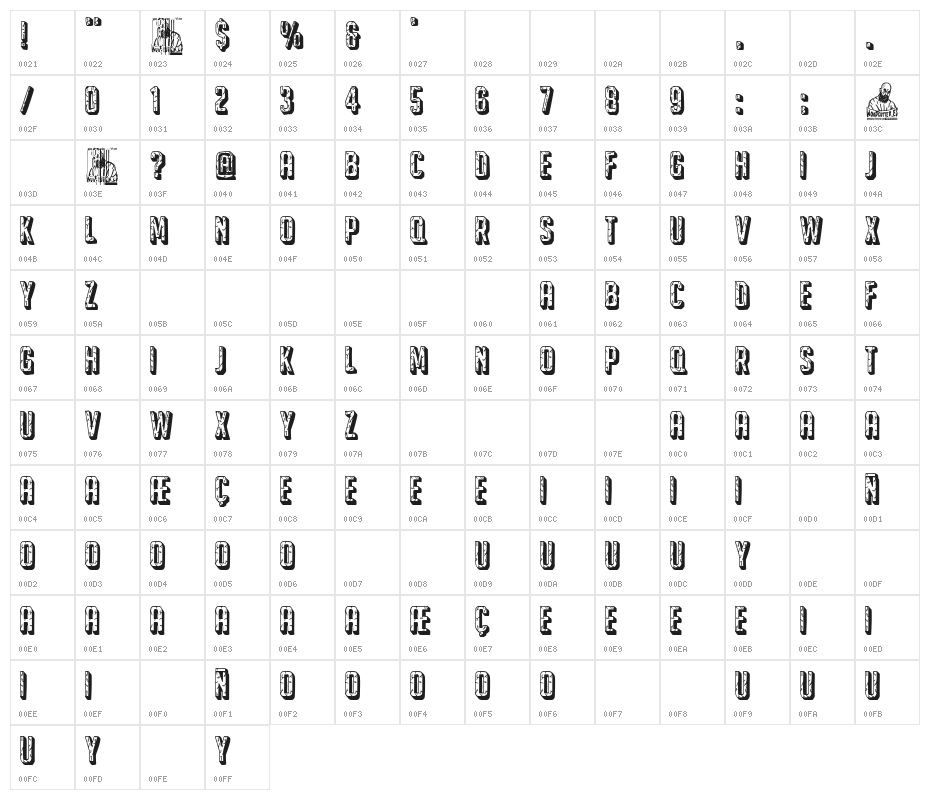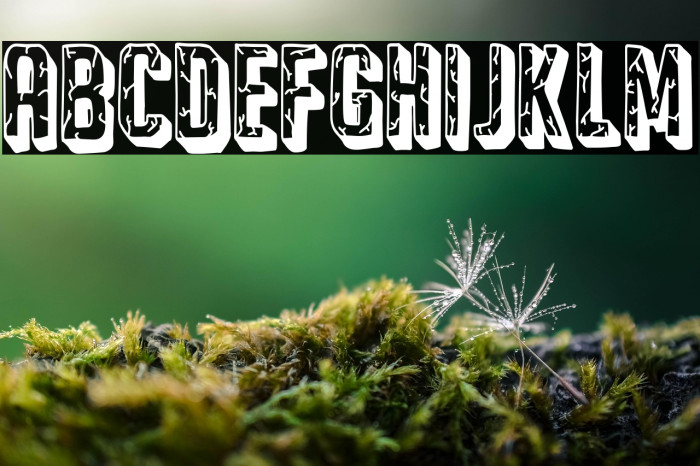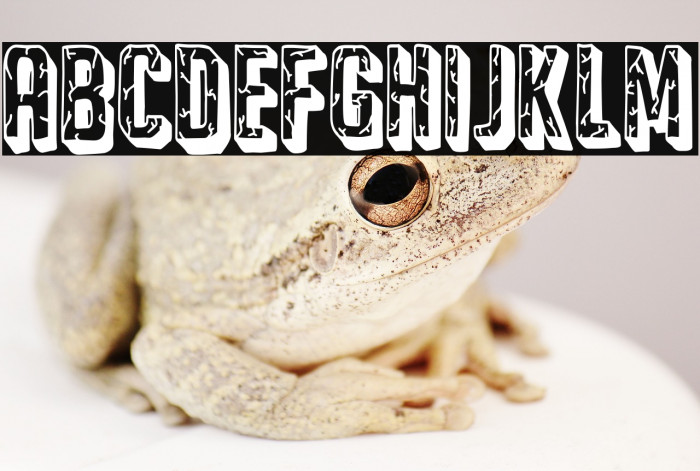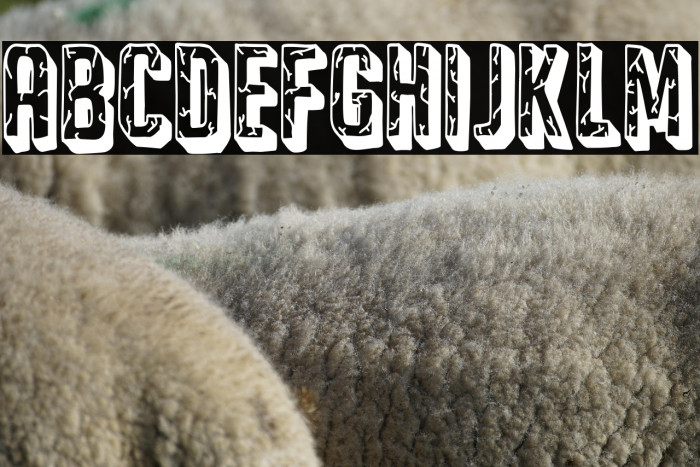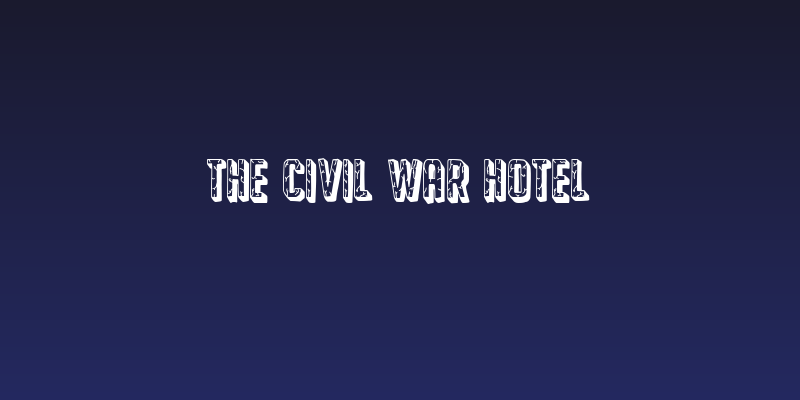
The Civil War Hotel Font
The Civil War Hotel Description
This font features a bold, three-dimensional style with a distressed texture that gives it a rugged, vintage appearance. The uppercase letters are prominent and impactful, with thick strokes and a shadow effect that adds depth. The numbers and special characters follow the same design, ensuring consistency across all elements. The distressed texture adds a unique character, making it suitable for projects that require a strong, historical, or industrial feel. The font's boldness and shadowing make it stand out, ideal for attention-grabbing designs.
| Proposed Projects | Ideal for posters, logos, branding, and any design requiring a strong, vintage aesthetic. |